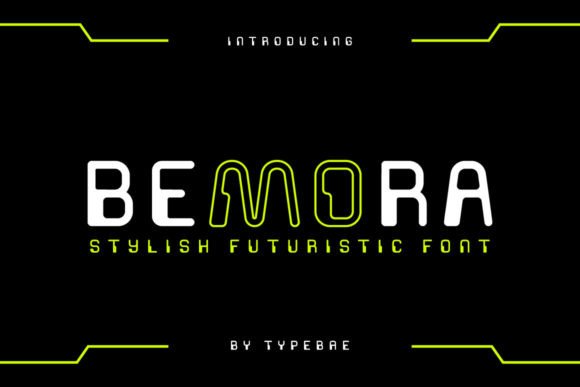
Bemora Font: Elevate Your Designs with a Futuristic Aesthetic
In the realm of typography, fonts play a pivotal role in shaping the visual identity of a brand, product, or service. Among the myriad of fonts available, Bemora stands out as a captivating display font that embodies a futuristic aesthetic. Its stylish lines and modern design make it perfect for projects seeking a cutting-edge appeal. Whether used in digital interfaces, advertising, or branding, Bemora adds a touch of innovation and sophistication to any visual composition.
What is Bemora Font?
Bemora is a modern sans-serif font, specifically designed to cater to the needs of contemporary designers. Its sleek and futuristic design is characterized by clean lines, geometric shapes, and a minimalist approach. This font is meticulously crafted to ensure optimal readability and legibility, making it an excellent choice for a wide range of applications, from digital screens to print materials.
Key Features of Bemora Font
- Unique and Distinctive Design: Bemora boasts a one-of-a-kind design that instantly captures attention. Its futuristic aesthetic is perfect for brands and projects looking to establish a modern and forward-thinking image.
- High Readability: Despite its stylized appearance, Bemora maintains high readability, making it suitable for body text and headlines alike.
- Versatility: Bemora is an incredibly versatile font, suitable for a wide range of applications, including branding, advertising, web design, and more.
- Multilingual Support: Bemora supports multiple languages, making it an excellent choice for global brands and projects.
Uses of Bemora Font
Bemora’s versatility and futuristic design make it an ideal choice for various applications. Here are some of the most popular uses of Bemora:
- Branding: Bemora can help create a modern and innovative brand image, perfect for startups, tech companies, and businesses looking to rebrand.
- Advertising: Bemora’s attention-grabbing design makes it perfect for headlines, slogans, and taglines in advertisements.
- Digital Interfaces: Bemora is well-suited for digital interfaces, including mobile apps, websites, and software.
- Print Materials: Bemora can also be used in print materials, such as brochures, flyers, posters, and business cards.
Benefits of Using Bemora Font
Using Bemora font offers several benefits, including:
- Enhanced Visual Appeal: Bemora’s futuristic design instantly elevates the visual appeal of any project.
- Improved Readability: Bemora’s clean lines and simple shapes ensure optimal readability.
- Increased Versatility: Bemora’s versatility makes it suitable for a wide range of applications.
- Unique Brand Identity: Bemora can help create a unique and memorable brand identity.
Tips for Using Bemora Font Effectively
To get the most out of Bemora font, follow these tips:
- Pair with Complementary Fonts: Pair Bemora with complementary fonts to create visual harmony.
- Use Proper Hierarchy: Establish a clear hierarchy by using different font sizes and weights.
- Experiment with Colors: Experiment with different colors to find the perfect combination that suits your brand.
- Consider Legibility: Ensure that your text is legible, especially when using Bemora for body text.
Bemora font is a captivating display font that embodies a futuristic aesthetic. Its stylish lines and modern design make it perfect for projects seeking a cutting-edge appeal. With its high readability, versatility, and unique design, Bemora is an excellent choice for a wide range of applications. By following the tips outlined above, you can effectively use Bemora to elevate your designs and create a lasting impression.
Frequently Asked Questions (FAQs)
- What is Bemora font?
- Bemora is a modern sans-serif font, specifically designed to cater to the needs of contemporary designers.
- What are the key features of Bemora font?
- The key features of Bemora font include its unique and distinctive design, high readability, versatility, and multilingual support.
- What are the uses of Bemora font?
- Bemora font can be used for branding, advertising, digital interfaces, print materials, and more.
- What are the benefits of using Bemora font?
- The benefits of using Bemora font include enhanced visual appeal, improved readability, increased versatility, and a unique brand identity.